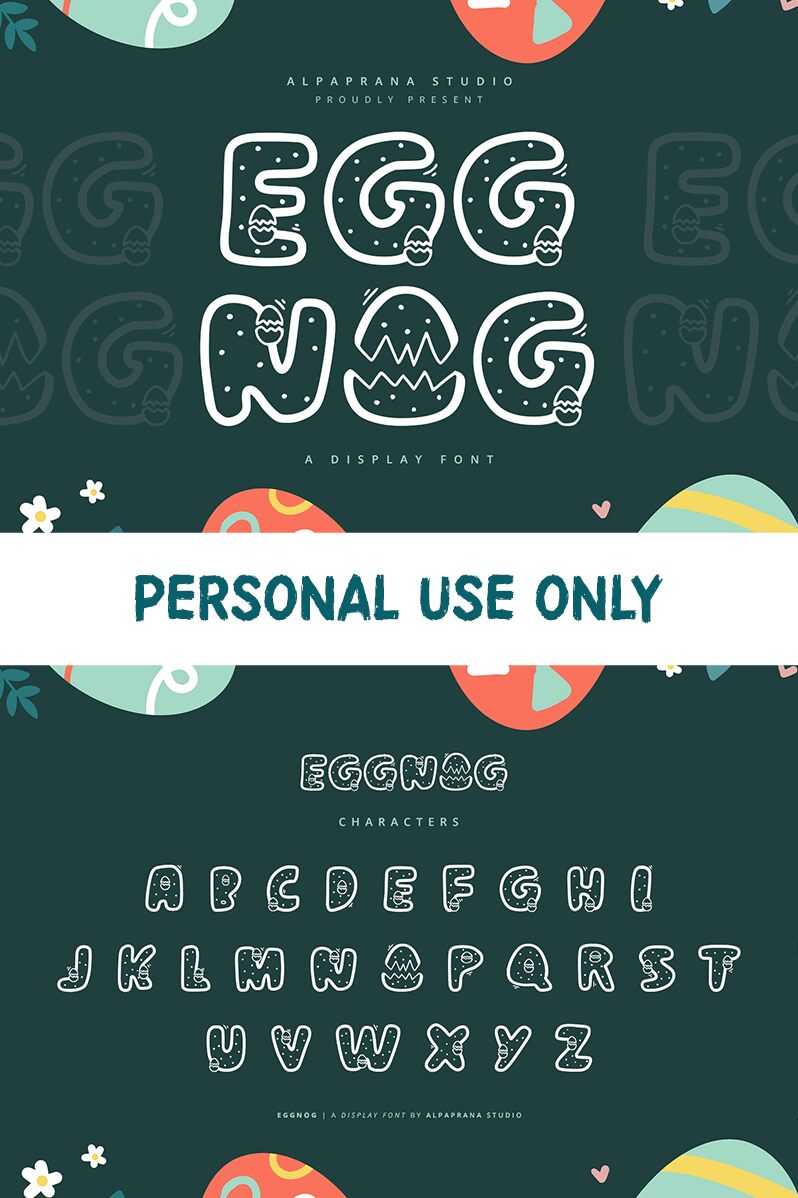
Eggnog is an extra-bold display font that brings the Easter spirit to any project. Designed by Alpaprana Studio, this whimsical typeface features playful curves and cartoon-like characters that are sure to delight audiences of all ages. Its bold weight makes it perfect for headlines, posters, and branding projects that demand attention. Use Eggnog in children's books, greeting cards, or even social media graphics to add a touch of fun and personality. This Easter-themed font is a must-have for any designer looking to inject some holiday cheer into their work.
Eggnog